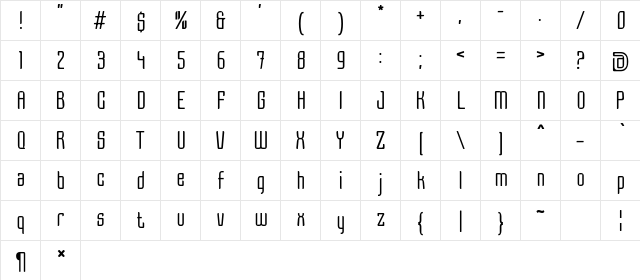
Grage Light Regular
| Designer | Emanes Dsign |
Design Context for Grage Light Typeface
Grage Light takes a measured approach to typography — its balanced proportions and neutral character make it a reliable workhorse for both digital and print work. Its slender proportions lend an understated elegance to any composition.